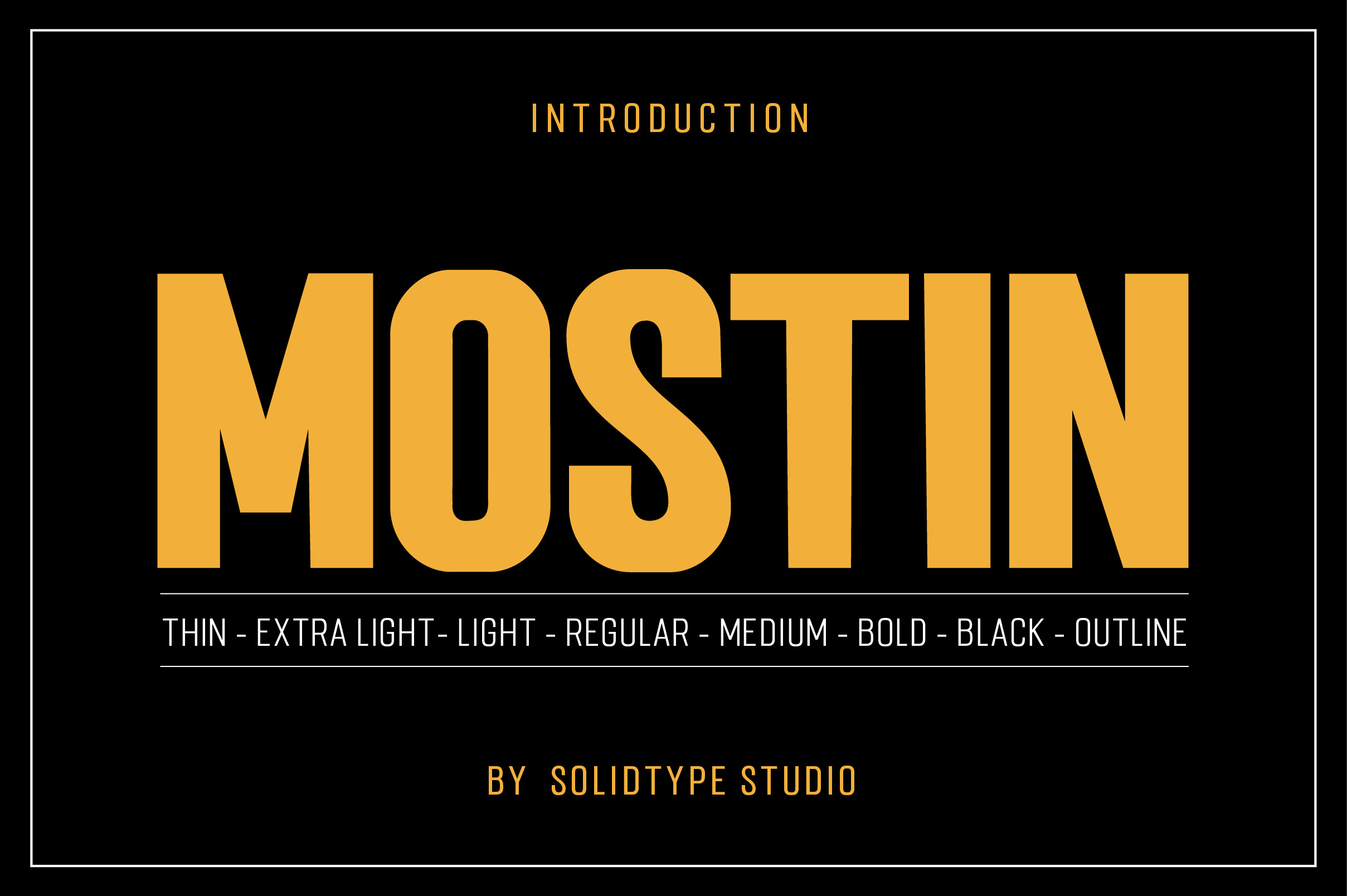
Mostin Typeface
Mostin is a sans serif font family designed with a modern and vintage feel. Strong and dynamic. Mostin is very versatile. Perfect for any branding, magazine, posters, logos, titles, blogs, and more. Mostin comes with a full set of uppercase, lowercase letters, numbers, punctuation and multilingual support. Each version of the font family comes in both .TTF and .OTF formats. for a total of 8 font files.
7 Weights + Outline
- Mostin Thin
- Mostin Extra Light
- Mostin Light
- Mostin Regular
- Mostin Medium
- Mostin Bold
- Mostin Black
- Mostin Outline